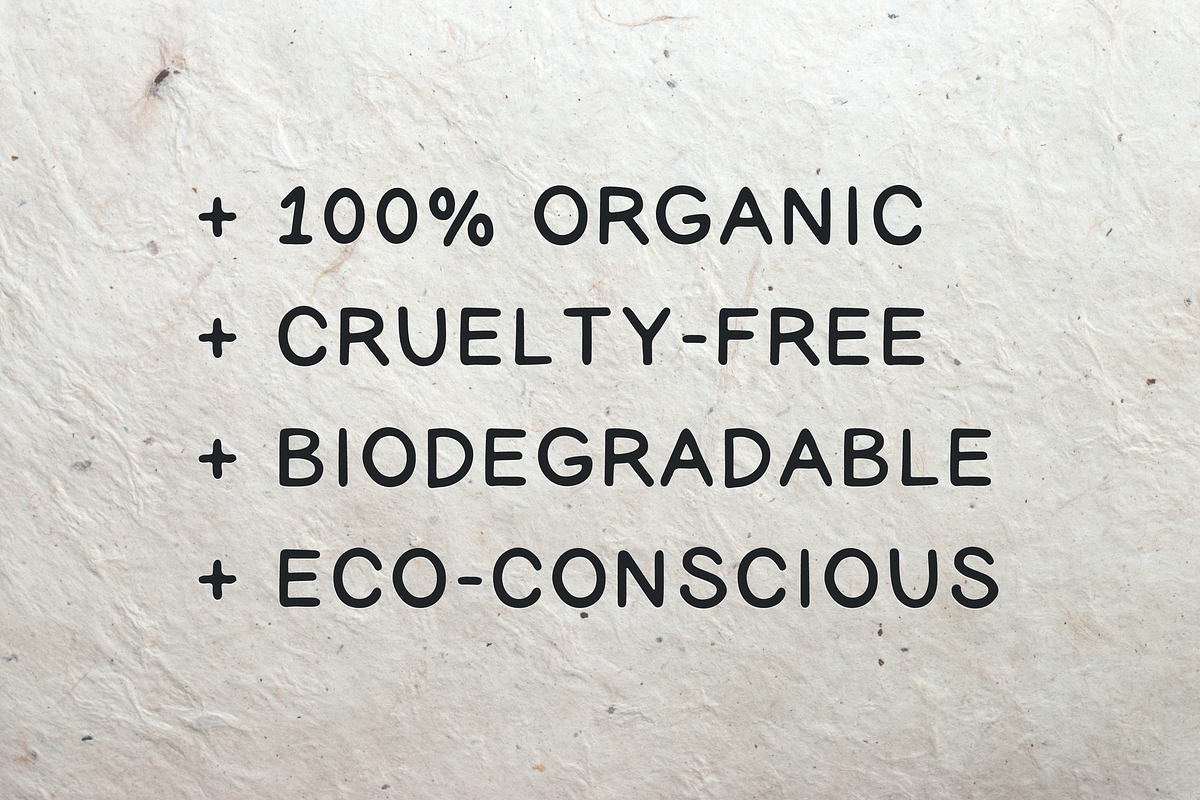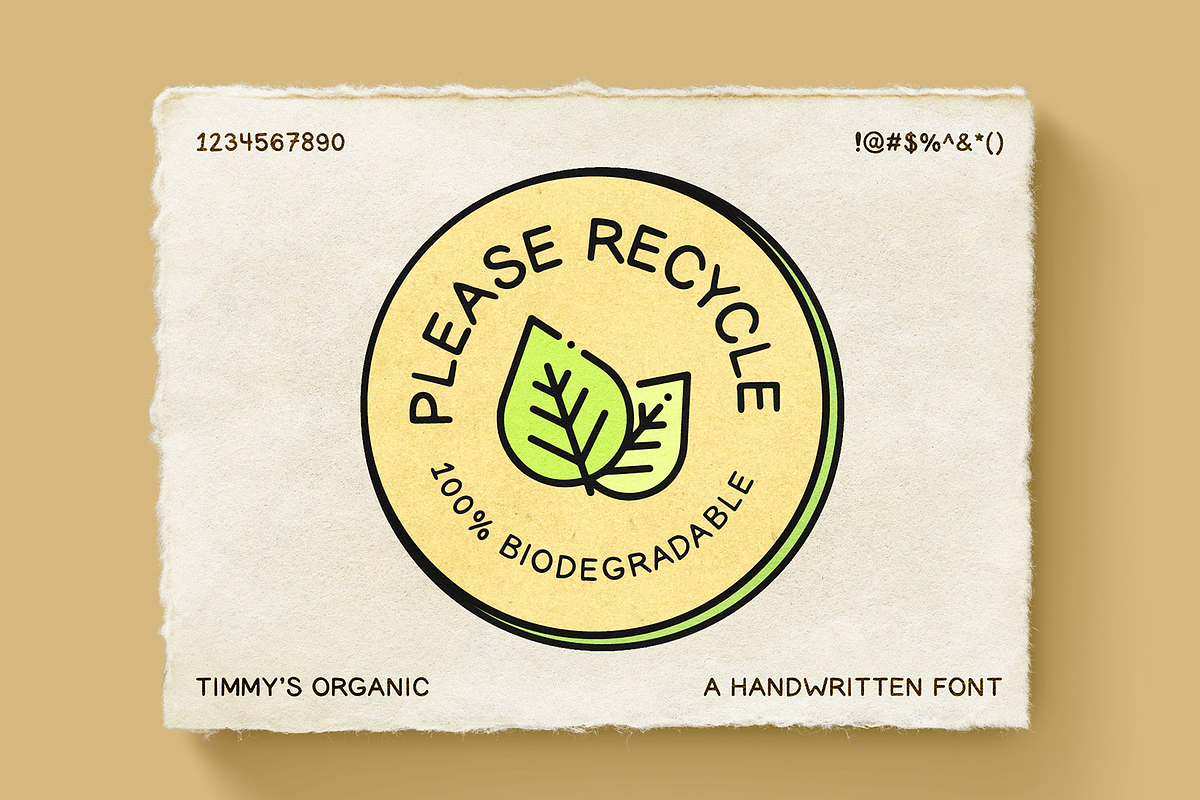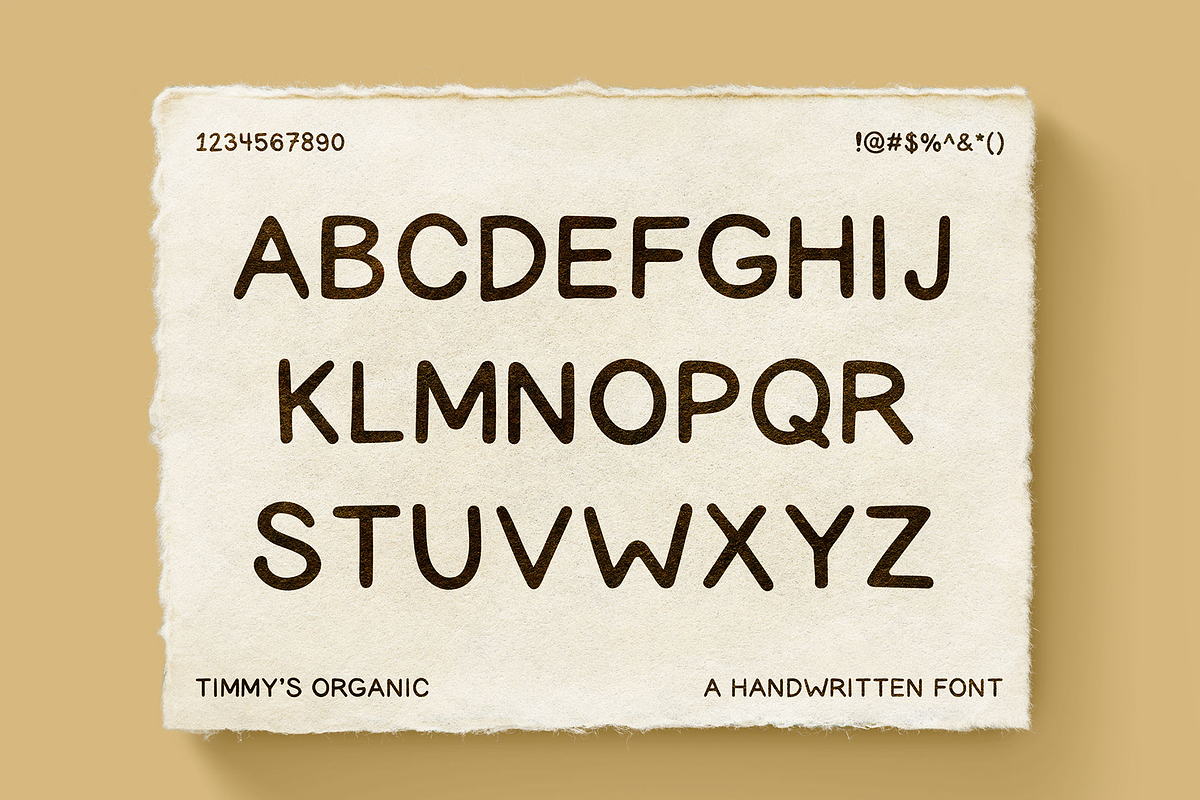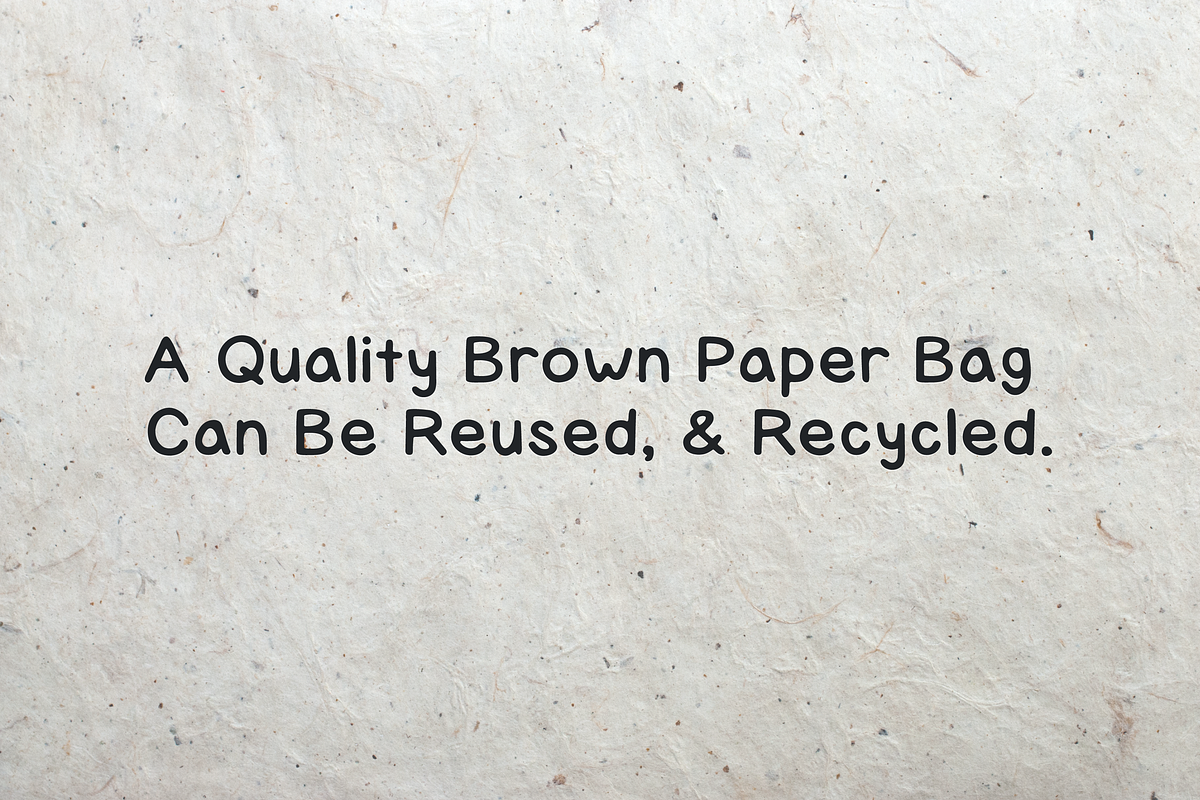
Timmy's Organic Typeface
A handwritten, sans-serif typeface created by VisualTimmy.
Why Timmy's Organic Typeface is worth a look
Timmy's Organic Typeface by VisualTimmy fits naturally into Branding, posters, packaging, typography.